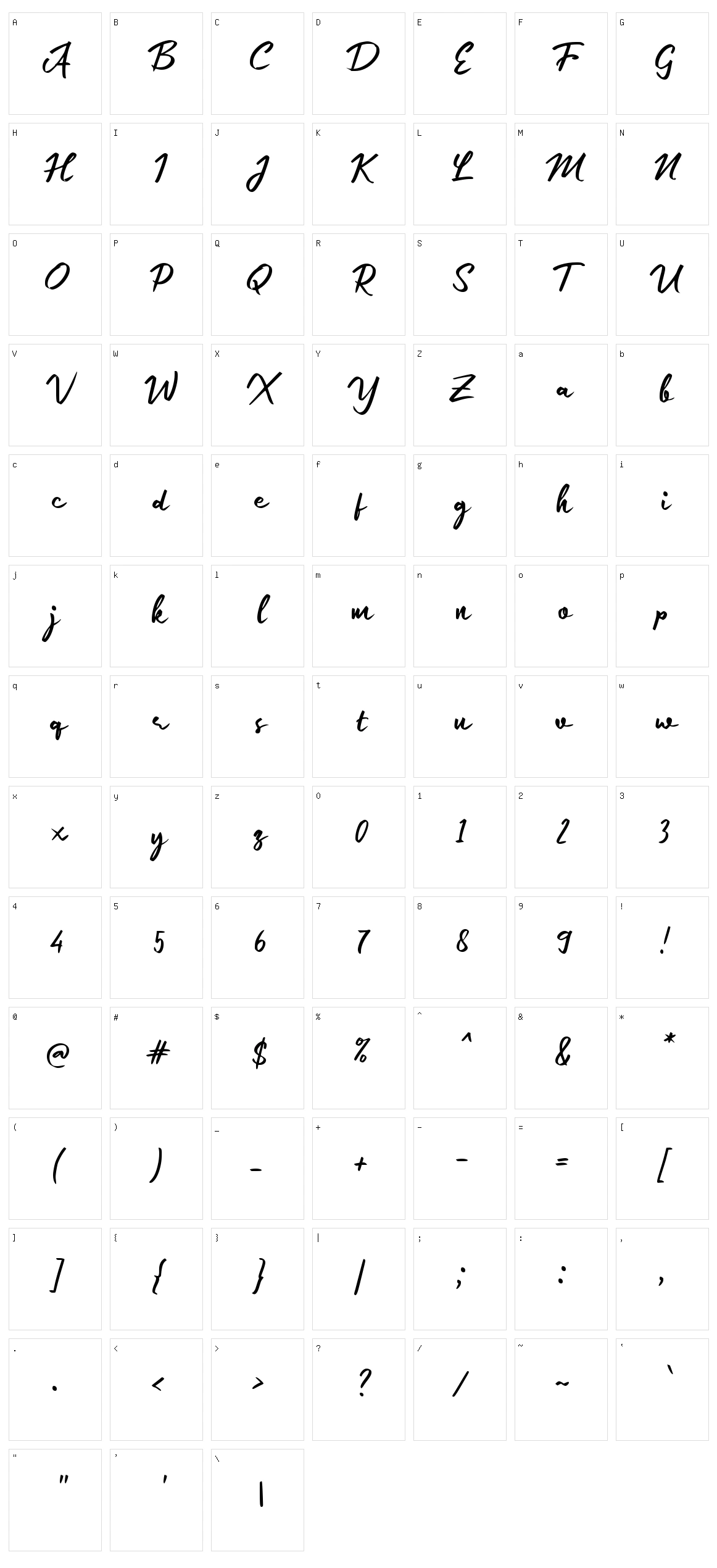
The free font e Easy Sticky is carefully designed by wep, showcasing a thoughtful balance of creativity and usability and falls under the Script font style. When you download the ZIP file, it contains only 12.71 KB of font files, making it lightweight and quick to download. Please review the license details below to understand permitted usage and distribution rights. If license information is not available, we recommend using this font for personal projects only or contacting the author directly for commercial usage permissions.